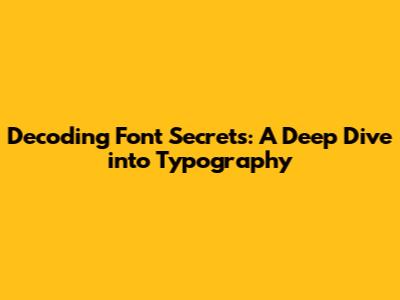
- Baseline: This is the imaginary line upon which most letters sit. It's the foundation of your text.
- X-Height: This refers to the height of the lowercase 'x' in a font. It's a key factor in determining the overall readability of a typeface. A larger x-height generally makes a font easier to read at smaller sizes.
- Ascender: This is the part of a lowercase letter that extends above the x-height, like in the letters 'b,' 'd,' 'f,' 'h,' 'k,' 'l,' and 't.'
- Descender: This is the part of a lowercase letter that extends below the baseline, like in the letters 'g,' 'j,' 'p,' 'q,' and 'y.'
- Serif: These are the little decorative strokes that finish off the ends of some letters. Fonts with serifs are called serif fonts, while those without are called sans-serif fonts (sans means "without" in French).
- Counter: This is the enclosed or partially enclosed space within a letter, like the inside of an 'o' or a 'd.'
- Stem: The main, usually vertical, stroke of a letter.
- Bowl: A curved stroke that creates an enclosed or partially enclosed space within a letter.
- Apex: The point at the top of a letter, like the 'A.'
- Vertex: The point at the bottom of a letter, like the 'V.'
- Kerning: This refers to the spacing between individual letters. Sometimes, certain letter combinations can look awkward if the default spacing is too tight or too loose. Kerning allows you to manually adjust the space between those letters to create a more visually pleasing result. Think about the letters "AV" – often, they need a little kerning love to make them look balanced.
- Leading: This is the vertical space between lines of text. It's also sometimes called line-height. The right amount of leading can significantly improve the readability of your text. Too little leading, and the lines will feel cramped and difficult to read. Too much leading, and the lines will feel disconnected. A good rule of thumb is to start with a leading value that's about 120-145% of your font size.
- Tracking: This refers to the uniform spacing between all the letters in a block of text. While kerning is about adjusting the spacing between individual letters, tracking is about adjusting the spacing between all the letters at once. You might use tracking to tighten up a headline or to create a more airy feel in a block of body text.
Hey guys! Ever wondered about the secret language of fonts? It's way more than just picking something that looks pretty. The world of typography is a deep and fascinating one, filled with history, art, and a whole lotta technical stuff. Today, we're gonna dive headfirst into that world and unravel some of the mysteries behind those letters we see every day. We're talking about everything from the basic anatomy of a font to how different typefaces can evoke completely different emotions. So, buckle up, grab a cup of coffee (or tea!), and let's get typographically educated! You'll never look at a font the same way again, I promise you that. From serif to sans-serif, from kerning to leading, we're going to cover all the bases. We'll even touch on some of the psychological effects of different fonts, so you can make sure you're sending the right message with your designs. Trust me, this is good stuff!
The Building Blocks: Font Anatomy
Okay, let's start with the basics. When we talk about font anatomy, we're referring to all the different parts that make up a single letter. Think of it like the human body – each part has a specific name and function. Understanding these terms will not only make you sound super smart at parties (maybe), but it'll also give you a deeper appreciation for the artistry that goes into creating a font.
Knowing these terms will help you communicate more effectively with designers and understand the subtle nuances that make each font unique. It's like learning the vocabulary of a new language – once you understand the words, you can start to appreciate the poetry.
Serif vs. Sans-Serif: The Great Divide
The biggest, most obvious distinction in the font world is between serif and sans-serif fonts. You've probably heard these terms before, but let's break down what they really mean and when you might want to use each one. Serif fonts, with their little decorative strokes, are often seen as more traditional, elegant, and authoritative. Think of fonts like Times New Roman, Garamond, and Georgia. These fonts are commonly used in books, newspapers, and formal documents because the serifs are said to help guide the eye across the page, making them easier to read in long blocks of text.
On the other hand, sans-serif fonts are cleaner, more modern, and often perceived as more friendly and approachable. Arial, Helvetica, and Open Sans are all popular sans-serif fonts. These fonts are often used in websites, logos, and other designs where a clean, minimalist look is desired. They tend to be easier to read on screens, especially at smaller sizes. The choice between serif and sans-serif often comes down to the overall tone and aesthetic you're trying to achieve. Do you want to project a sense of tradition and authority? Go with a serif font. Are you aiming for a modern, clean, and approachable look? Sans-serif is your friend. But don't be afraid to experiment and break the rules! Ultimately, the best font is the one that works best for your specific project.